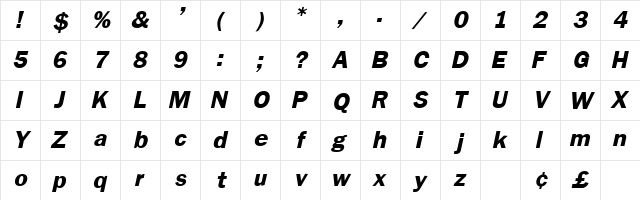
Patella Oblique Font Preview
Patella Oblique
Patella Oblique Font Details
Design Context for Patella Typeface
Patella offers clean, dependable letterforms without strong stylistic allegiance, making it a practical choice for designers who need flexibility. The slanted form adds forward momentum and visual energy.
Pro Tip: Try Patella for annotation and caption copy alongside an upright companion — the contrast in angle creates a dynamic but ordered typographic system.